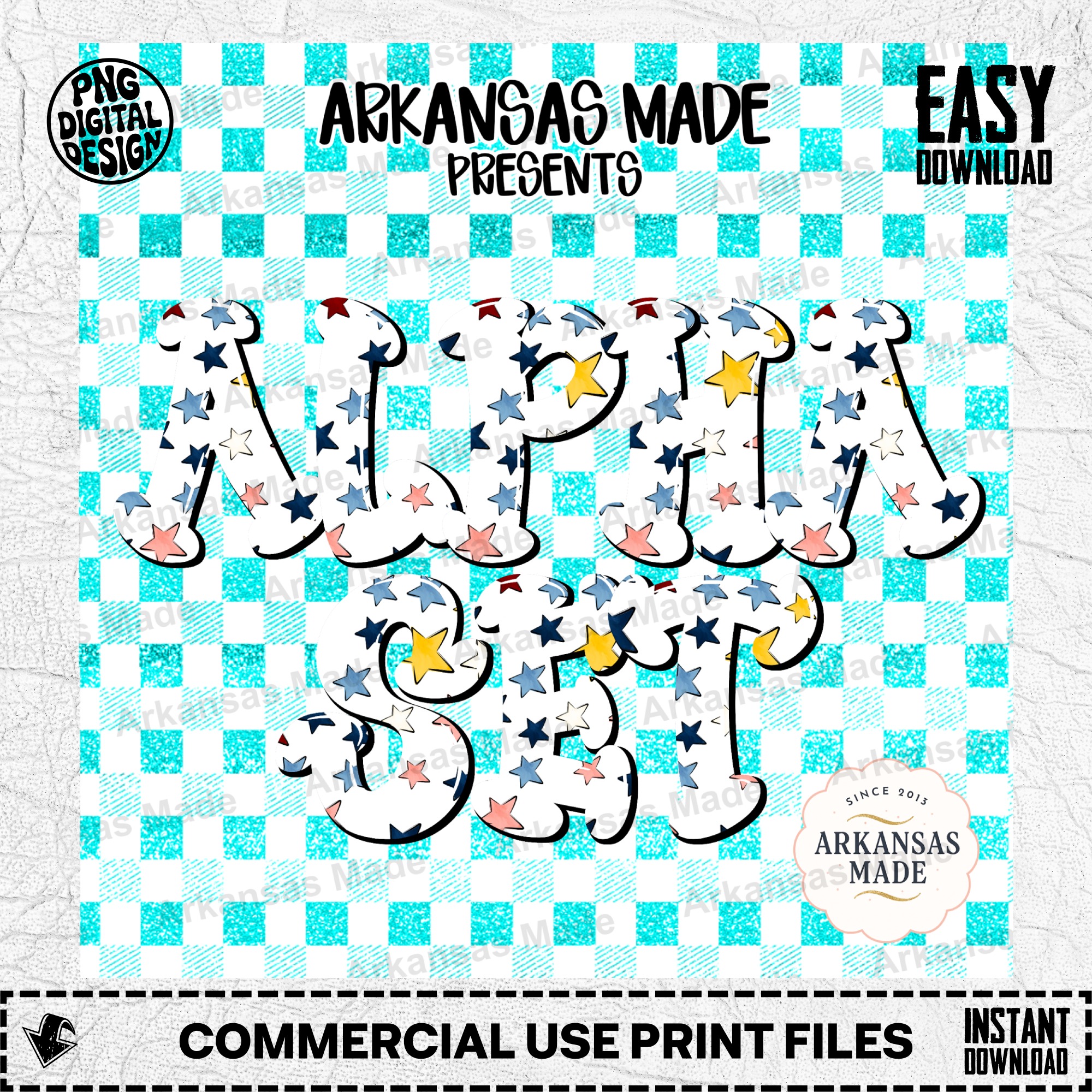
Patriotic Star Alpha Set PNG, 4th of July Sublimation Letters, Americana Alphabet Digital Download for DIY Crafts, Red White Blue Font
Instantly elevate your designs with our Patriotic Star Alpha Set PNG digital download! Perfect for 4th of July sublimation and Americana crafts. This vibrant alphabet features a playful star-filled design in classic red, white, and blue hues with a touch of yellow. Ideal for crafters, small businesses, and DIY enthusiasts creating custom apparel, party decorations, or personalized gifts. Celebrate Independence Day, Memorial Day, or any American-themed event with these whimsical, ready-to-use letters.